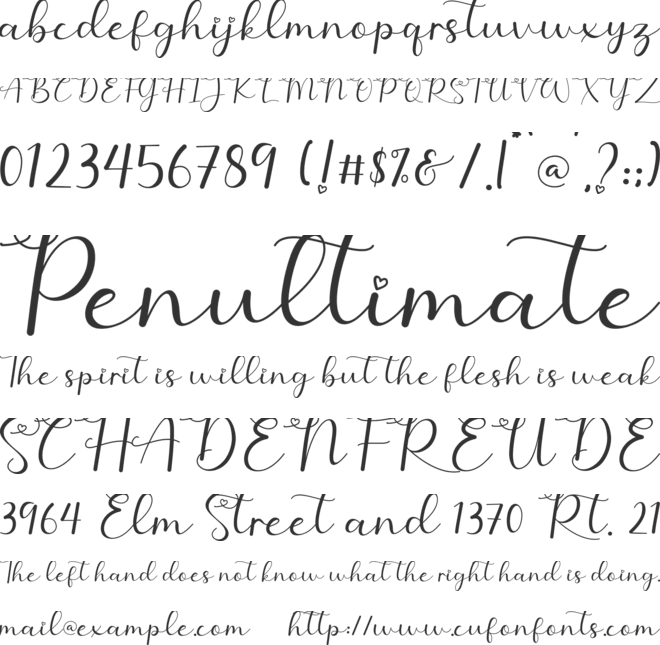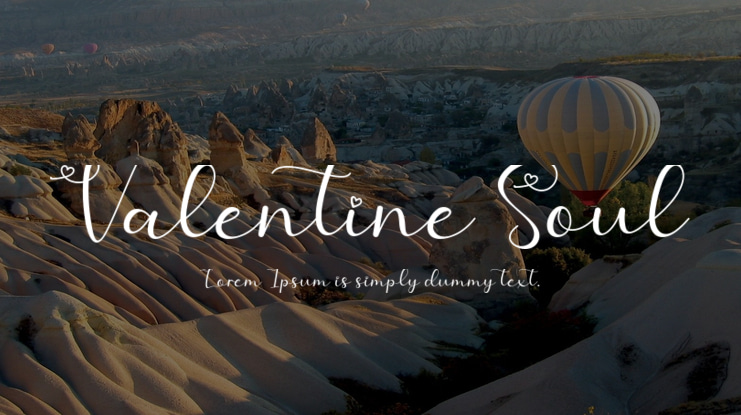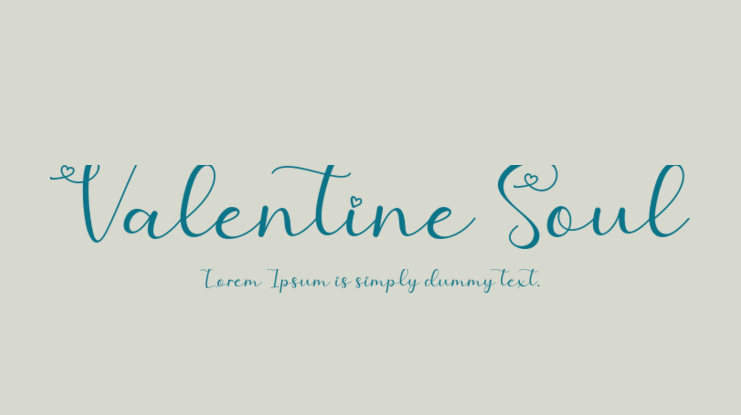
Valentine Soul Font
Valentine Soul is an incredibly beautiful handwritten font, featuring little hearts as ornaments. It looks stunning on Valentine cards, thank you cards, quotes, greeting cards, logos, business cards and every other design which needs a handwritten touch.